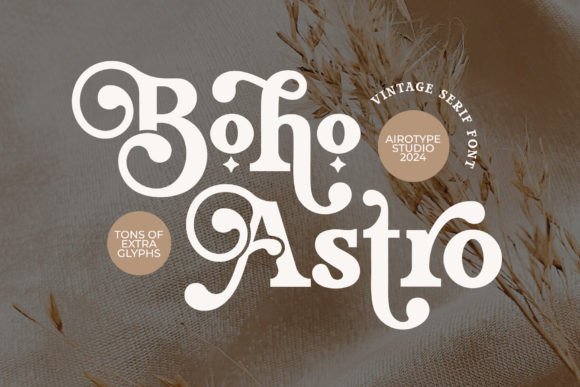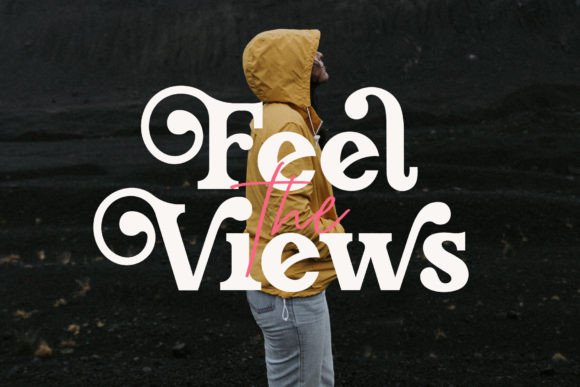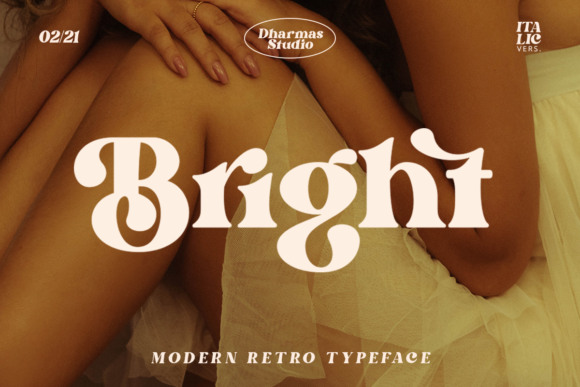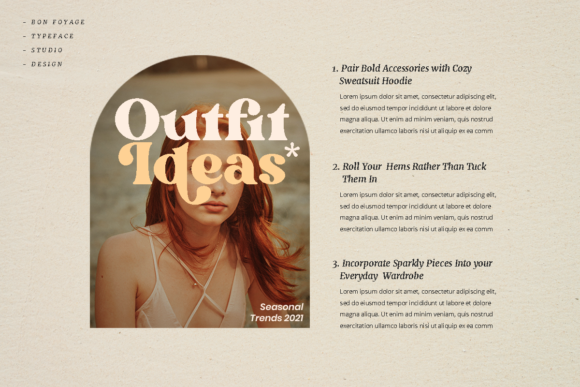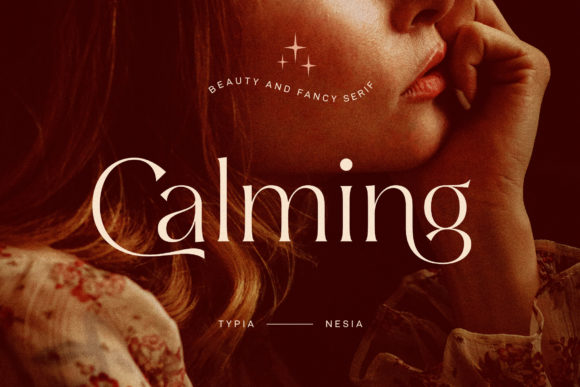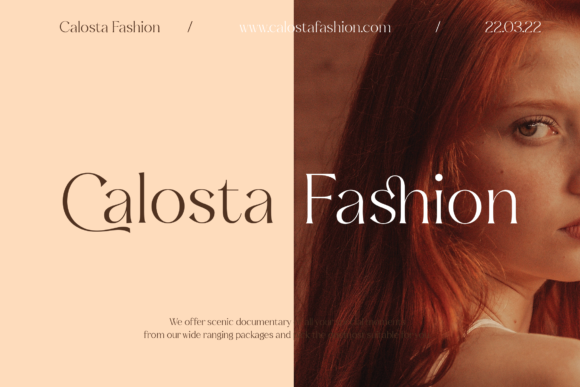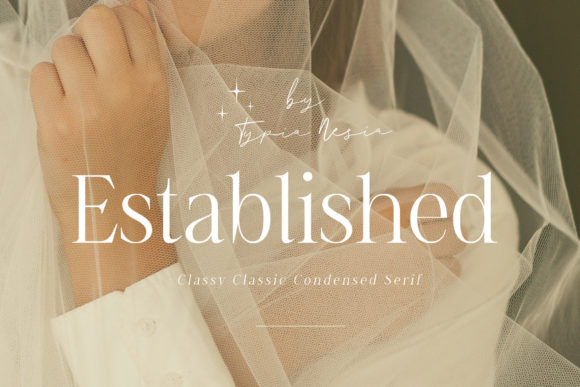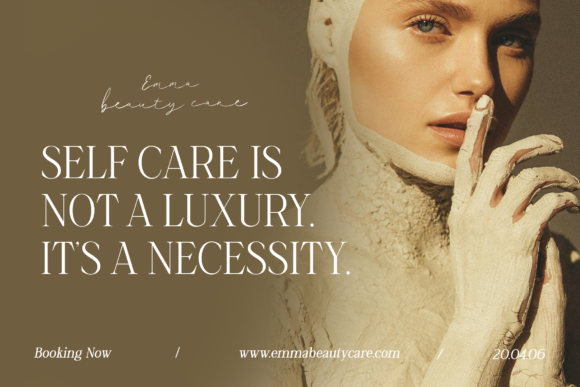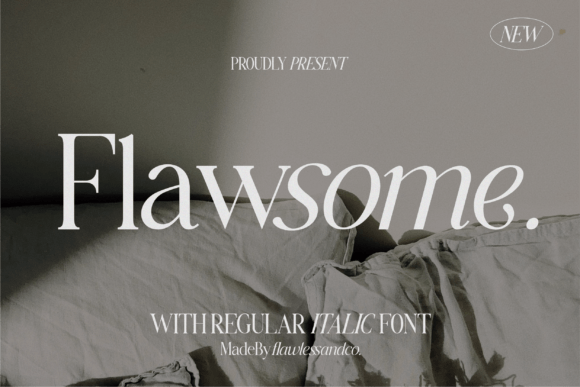
14 Modern Fonts for Luxury Fashion Labels 2026
As a designer, I’m always inspired by typography that captures the elegance and creativity of modern fashion branding. This collection of 14 modern fonts for 2026 features stylish typefaces I personally use to create chic, elevated, and visually striking brand experiences.
From contemporary serifs to bold editorial-inspired fonts, each typeface was selected to bring sophistication and personality into boutique websites, fashion campaigns, lookbooks, social media visuals, and luxury label branding. These fonts help create a modern aesthetic that feels both fashionable and timeless.
I believe the right typography can instantly shape a brand’s identity, which is why I carefully choose fonts that add confidence, elegance, and a premium editorial feel to every project.
Hermione Modern Font
Hermione is a modern serif font featuring stylish alternates and elegant ligatures for a sophisticated look. Perfect for luxury branding, fashion logos, editorial layouts, and social media design. Its refined typography adds elegance and creativity to any project, making it ideal for premium modern serif font collections and professional graphic design.
Vanilla Ravioli Modern Font
Vanilla Ravioli is a sophisticated and charming serif font with a fashionable, elegant touch. Perfect for luxury branding, feminine logos, wedding invitations, beauty packaging, and chic editorial designs. Its modern and stylish typography adds refinement to every project, making it ideal for premium creative work and elegant serif font collections.
Black Mogan Modern Font
Mogan is a modern serif font featuring stylish alternates and elegant ligatures, perfect for creating sophisticated designs. Ideal for branding materials, logos, t-shirts, posters, photography, quotes, and wedding invitations. Its refined typography adds a luxurious and contemporary touch, making it perfect for modern serif font collections and premium creative projects.
Boho Astro Modern Font
Boho Astro is a bold modern serif font with elegant vintage vibes and stylish alternative glyphs. Perfect for logos, branding, wedding invitations, photography, stickers, sublimation, quotes, and creative projects with a modern retro touch. Its unique typography adds sophistication and charm, making it ideal for luxury design and premium serif font collections.
Vogue Modern Font
Vogue is a classy serif font that adds elegance and sophistication to every design. Featuring sleek lines and refined curves, it is perfect for fashion magazines, luxury branding, wedding invitations, logos, and editorial layouts. Its timeless yet modern style creates a polished aesthetic, making it ideal for upscale typography and premium creative projects.
Bright Modern Font
Bright is a stylish serif font with a perfect blend of modern and retro aesthetics. Clear, bold, and fun, it captures the iconic charm of 60s and 70s typography. Ideal for branding, posters, logos, editorial layouts, and vintage-inspired designs. Perfect for creative projects that need a bold retro serif font with a trendy modern touch.
Loving Ambros Modern Font
Loving Ambros is a luxurious and elegant serif font crafted for headlines, titles, branding, and editorial design. Perfect for advertising, vintage mood boards, logos, packaging, wedding invitations, websites, and social media quotes. Its modern yet vintage aesthetic adds sophistication and charm, making it ideal for premium typography and creative branding projects.
Calming Modern Font
Calming Serif is an elegant serif font featuring beautiful alternates and stylish ligatures for perfect typography combinations. Ideal for luxury logos, classy branding, fashion magazines, cosmetic brands, editorial layouts, invitations, book covers, art galleries, and boutique designs. Its refined modern aesthetic makes it perfect for premium creative and advertising projects.
Established Modern Font
Established is a classy and elegant condensed serif font designed for luxury and sophistication. Perfect for branding, logos, editorial layouts, fashion magazines, cosmetic brands, wedding invitations, packaging, art galleries, boutique designs, and modern advertising. Its refined and stylish appearance adds a premium touch to any creative project.
Olive & Citrus Modern Font
Olive & Citrus is a modern, classic, and elegant serif typeface designed for refined and versatile use. Perfect for branding, logos, magazines, packaging, and social media content, it brings a sophisticated and timeless feel to any project. PUA encoded, it allows easy access to all glyphs, ligatures, and stylistic alternates for effortless creative customization.
Flawsome Modern Font
Flawsome is a stylish modern italic serif font that blends classic serif structure with contemporary design details. Featuring clean, elegant lines and subtle imperfect touches, it creates a unique handcrafted feel. Perfect for branding, logos, headlines, titles, magazines, and social media designs, this font adds sophistication and personality to any creative project.
Paris Forbel Modern Font
Paris Forbel Font is an elegant display serif typeface with a modern, luxurious aesthetic. Inspired by romantic vibes, it blends sophistication with a unique contemporary style, making it perfect for versatile design projects. Ideal for logos, branding, posters, books, packaging, invitations, product labels, advertising, wedding designs, and print templates. This font adds a fabulous and refined touch to any creative work, enhancing elegance and visual appeal.